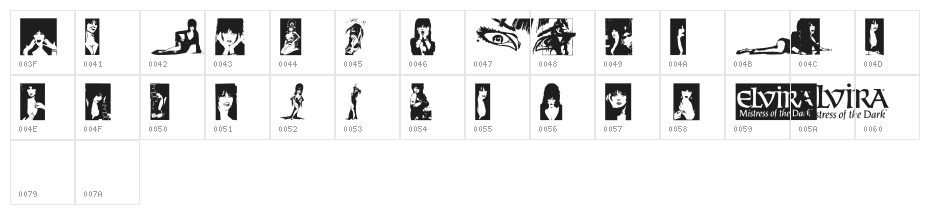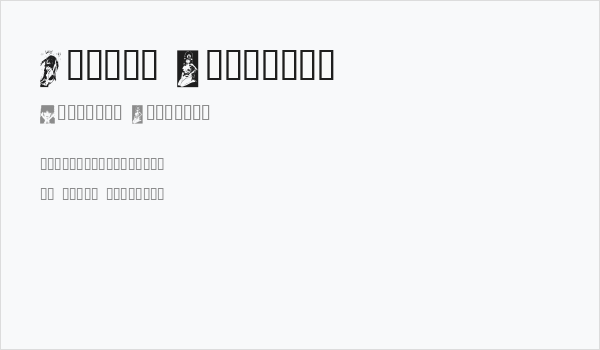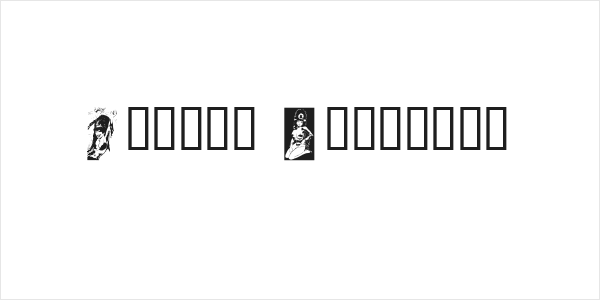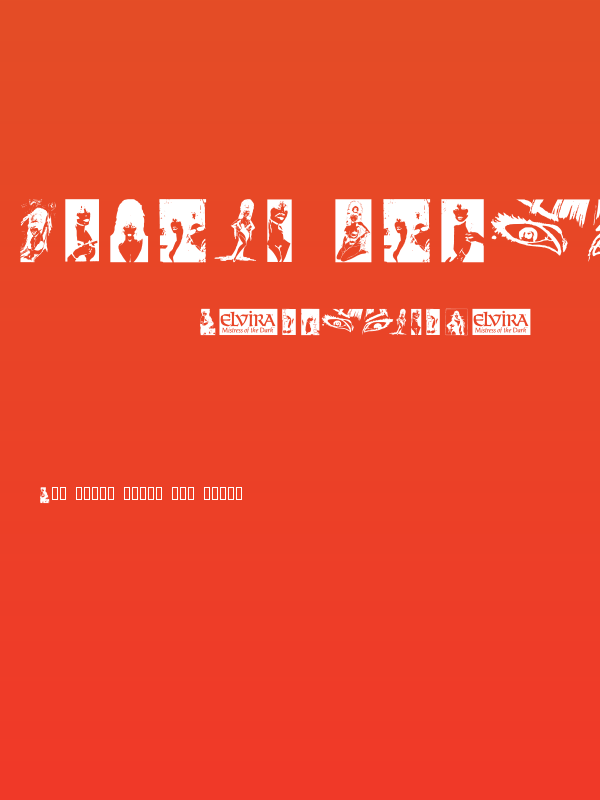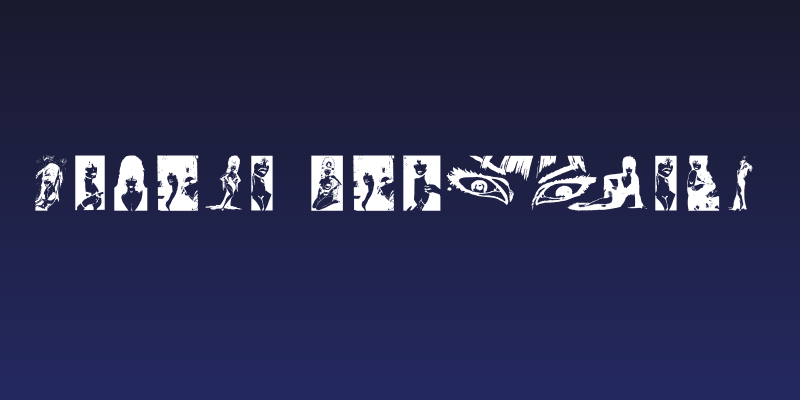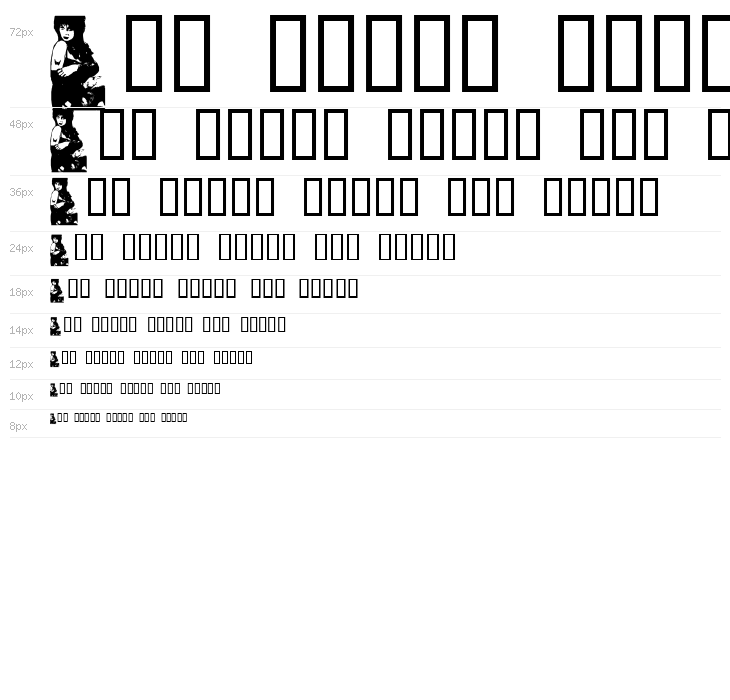
Elvira Dingbats Font
Elvira Dingbats Description
This is a decorative font featuring a series of dingbats inspired by a well-known character. The font includes a variety of images depicting the character in different poses and expressions, capturing a playful and mysterious aesthetic. The design is bold and graphic, with high contrast between the black illustrations and the white background. This font is not intended for traditional text but rather for decorative purposes, adding a unique and thematic touch to projects.
| Use Case | Logos, Posters, Decorative elements |
| Proposed Projects | Ideal for themed party invitations, Halloween decorations, posters, and any project requiring a touch of playful mystery. |